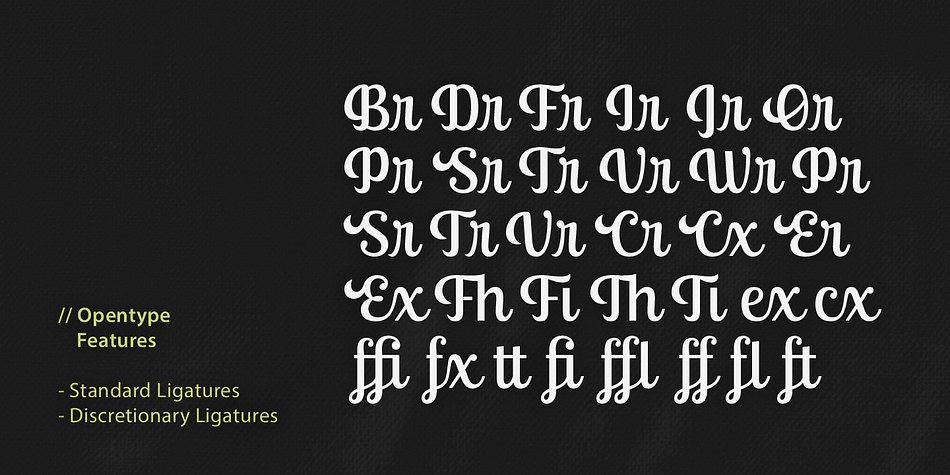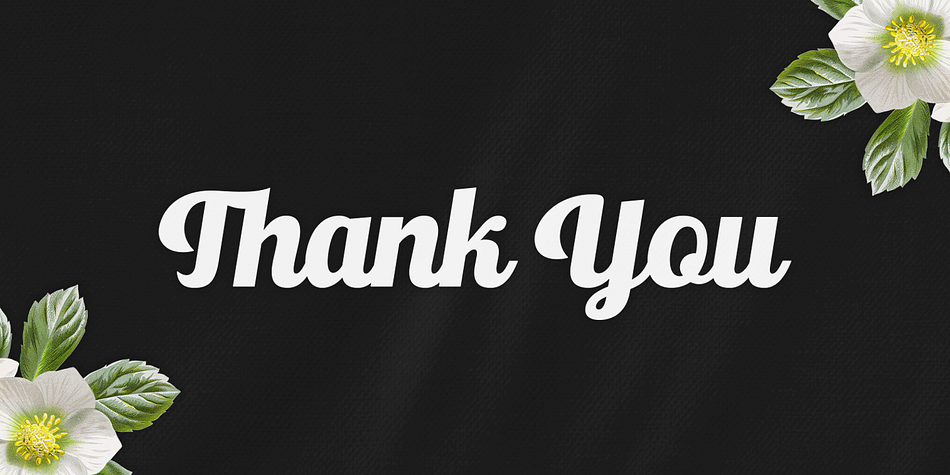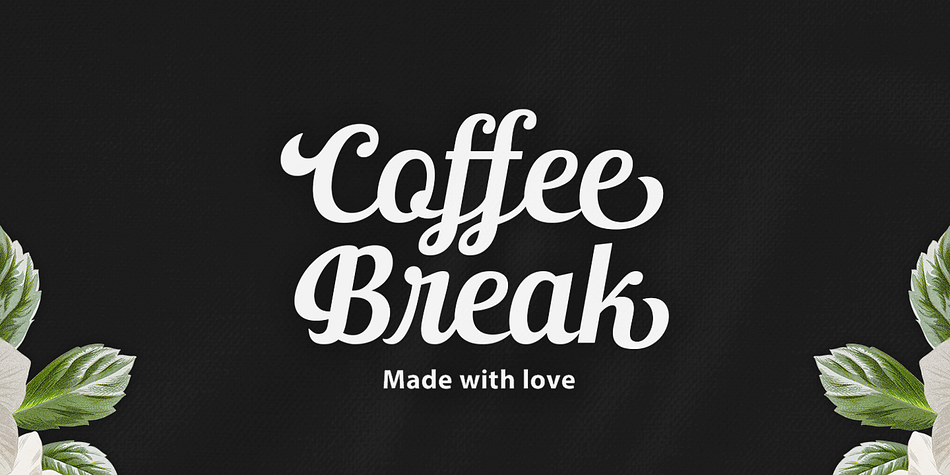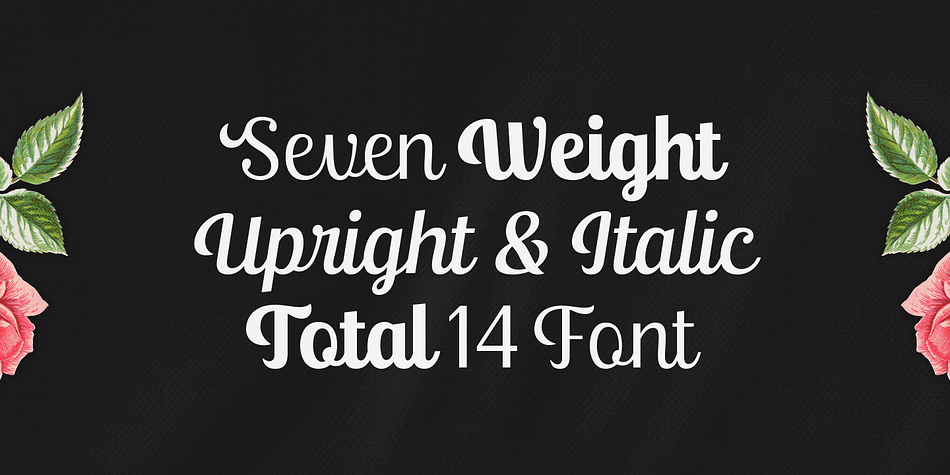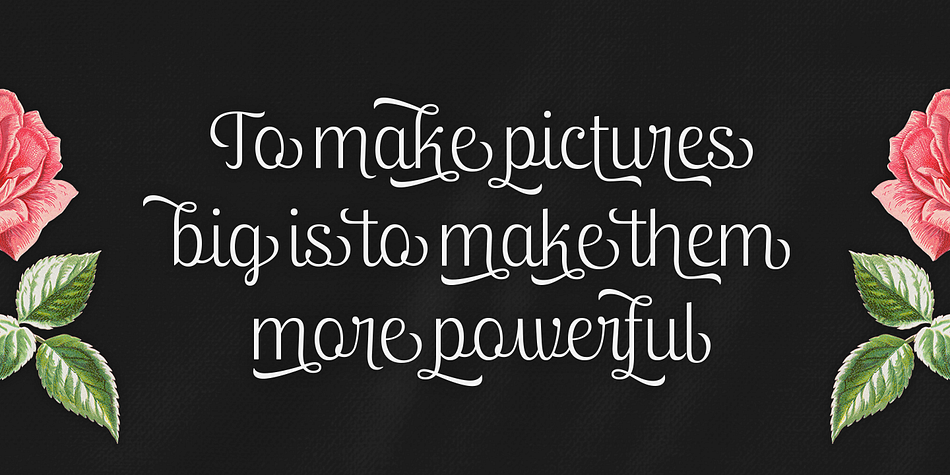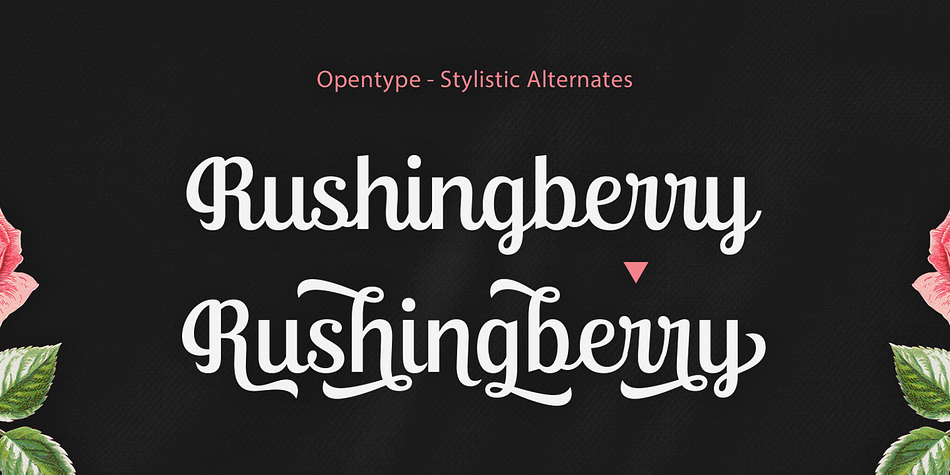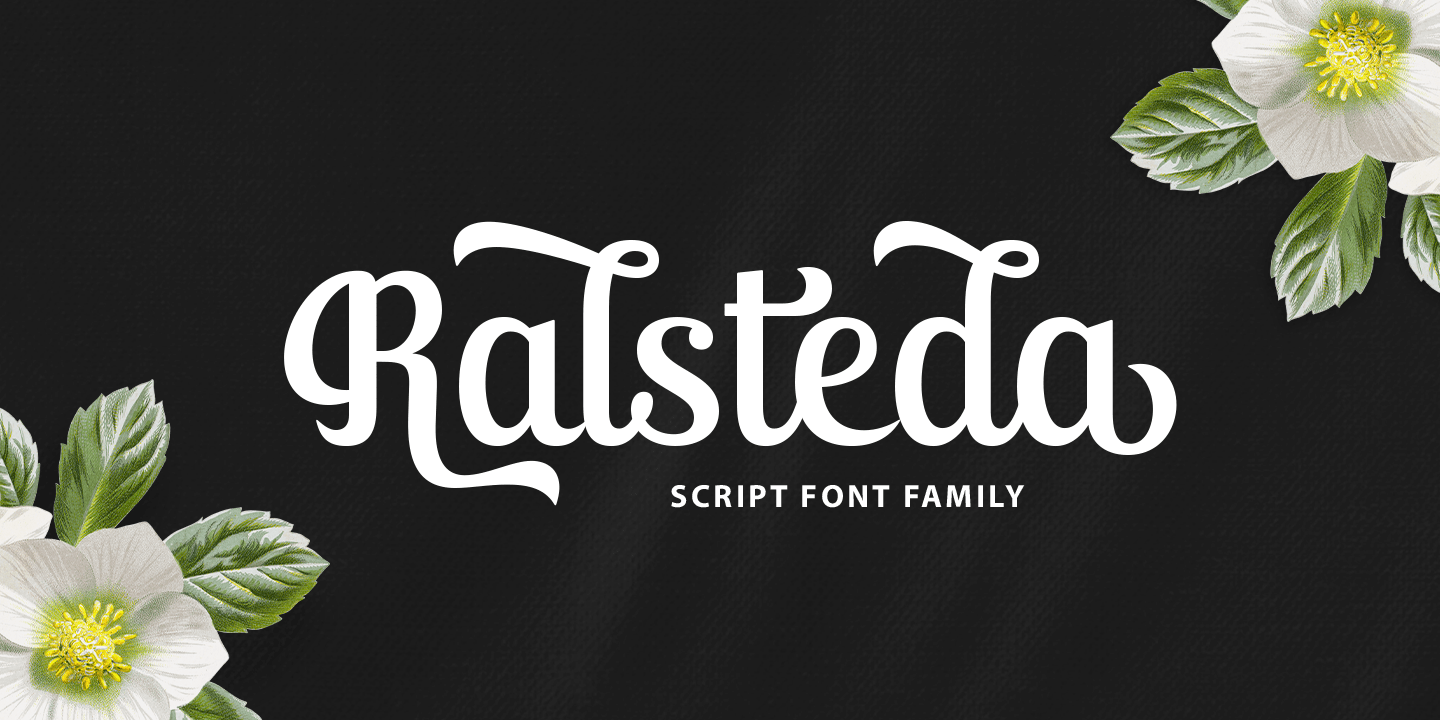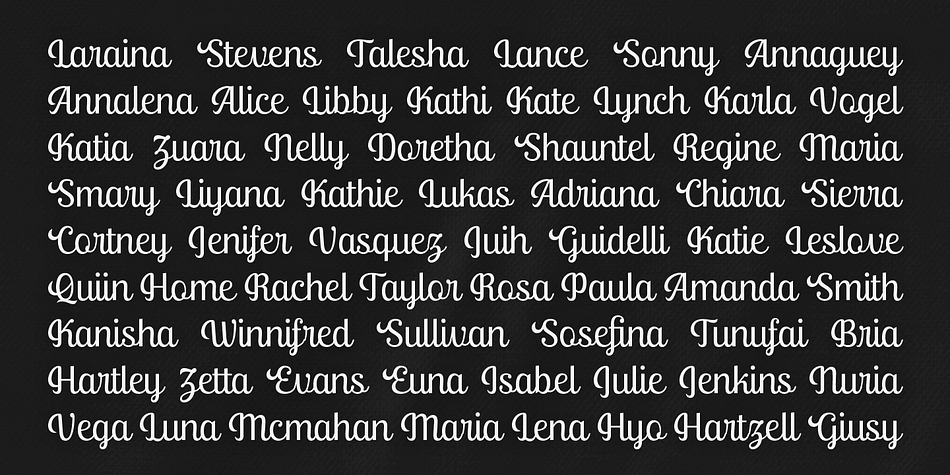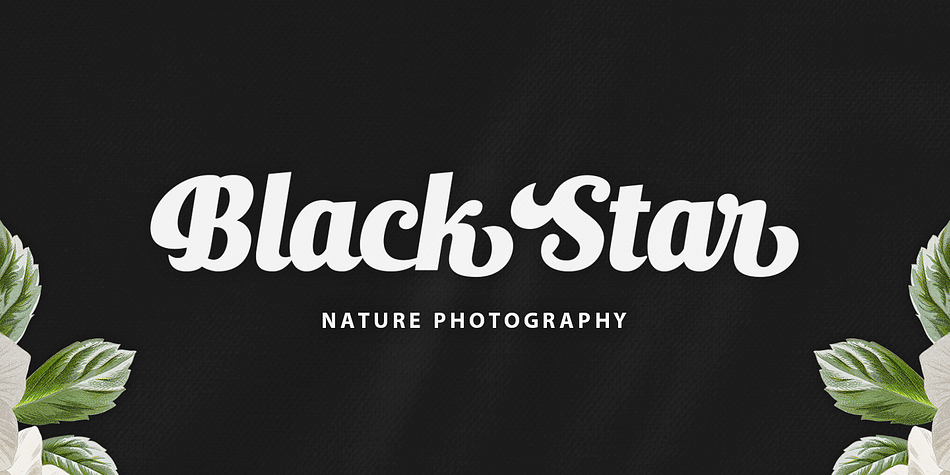
Ralsteda Script is a brush script and script font family. This typeface has fourteen styles and was published by Ajibatype.
Ralsteda is a vintage script font family. Classic and elegant touch. Ralsteda script family consist of 14 fonts with 7 weigths. There are so many variations on each character. Include Opentype stylistic alternates, standard ligatures, discretionary ligatures and multilingual support. You are able to create so many different typographical layouts easily and quickly. This font is suitable for badges, lable, posters, wedding invitation, t-shirts, signage, logos, branding, packaging, etc.